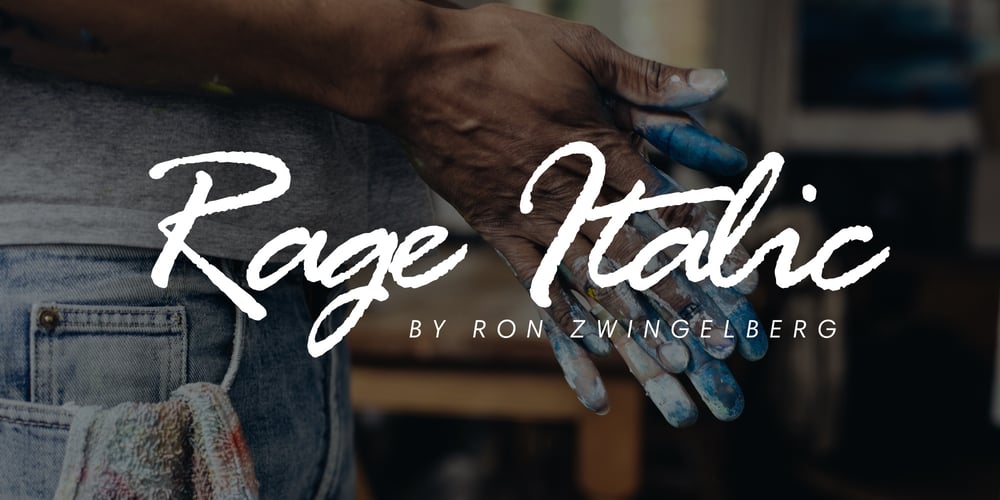
Rage Italic Font Family was designed by Ron Zwingelberg and published by ITC. Rage Italic contains 1 styles and family package options. Rage Italic is the work of American designer Ron Zwingelberg. It was one of the first casual brush style scripts with a rough, textured edge. The initial-like capitals complement a lowercase alphabet which links together to create the look of true handwriting. Rage Italic font is ideal for work that should have the spontaneous look of pen writing on parchment.